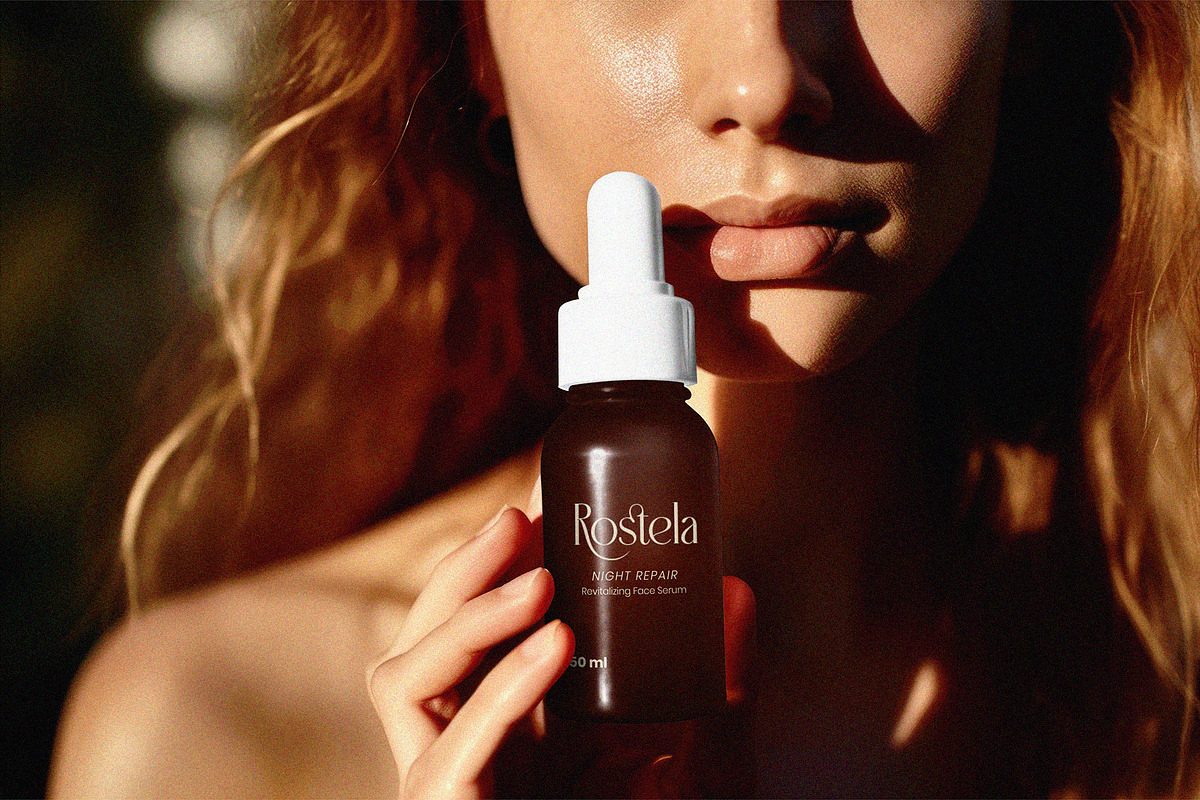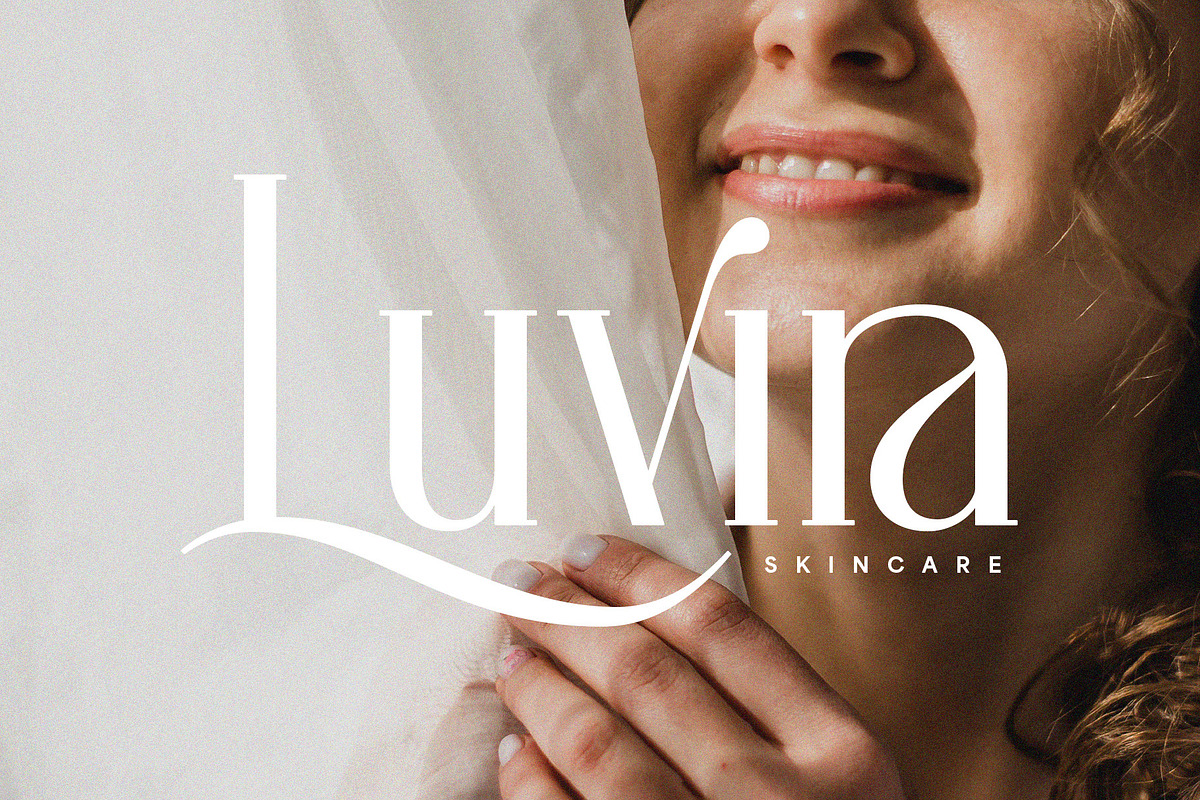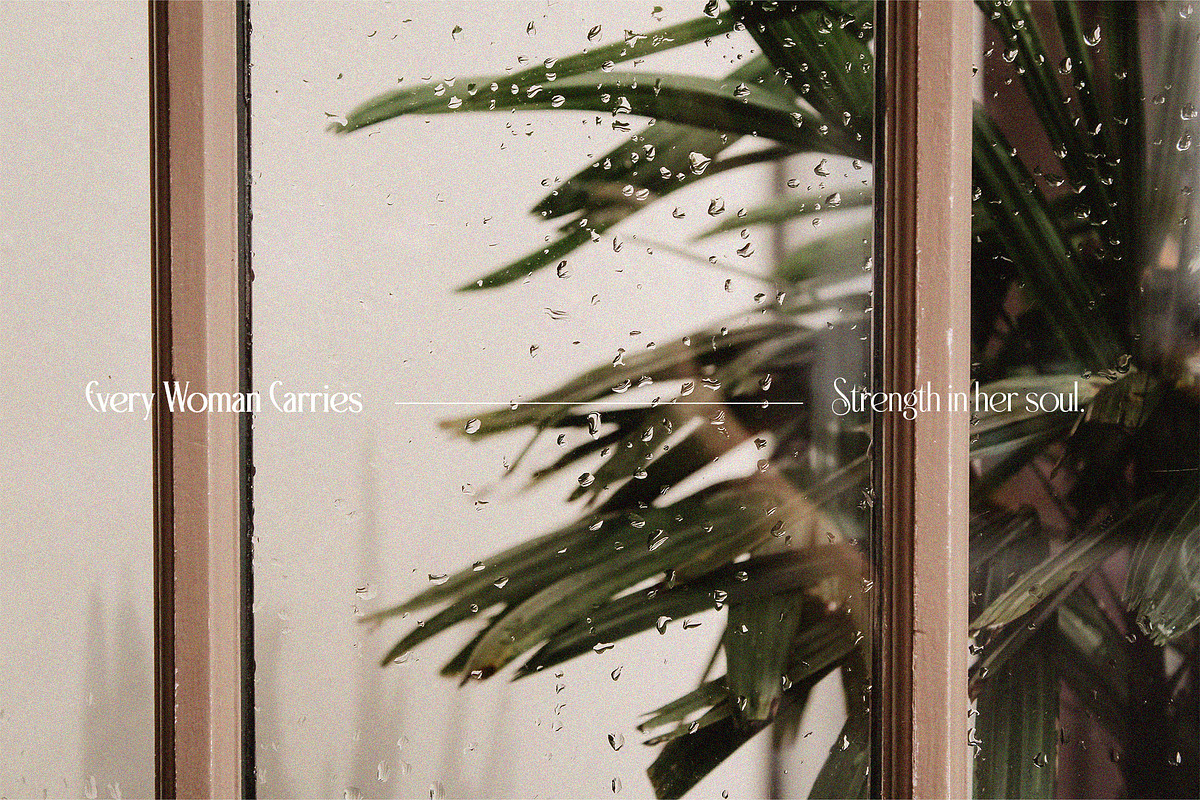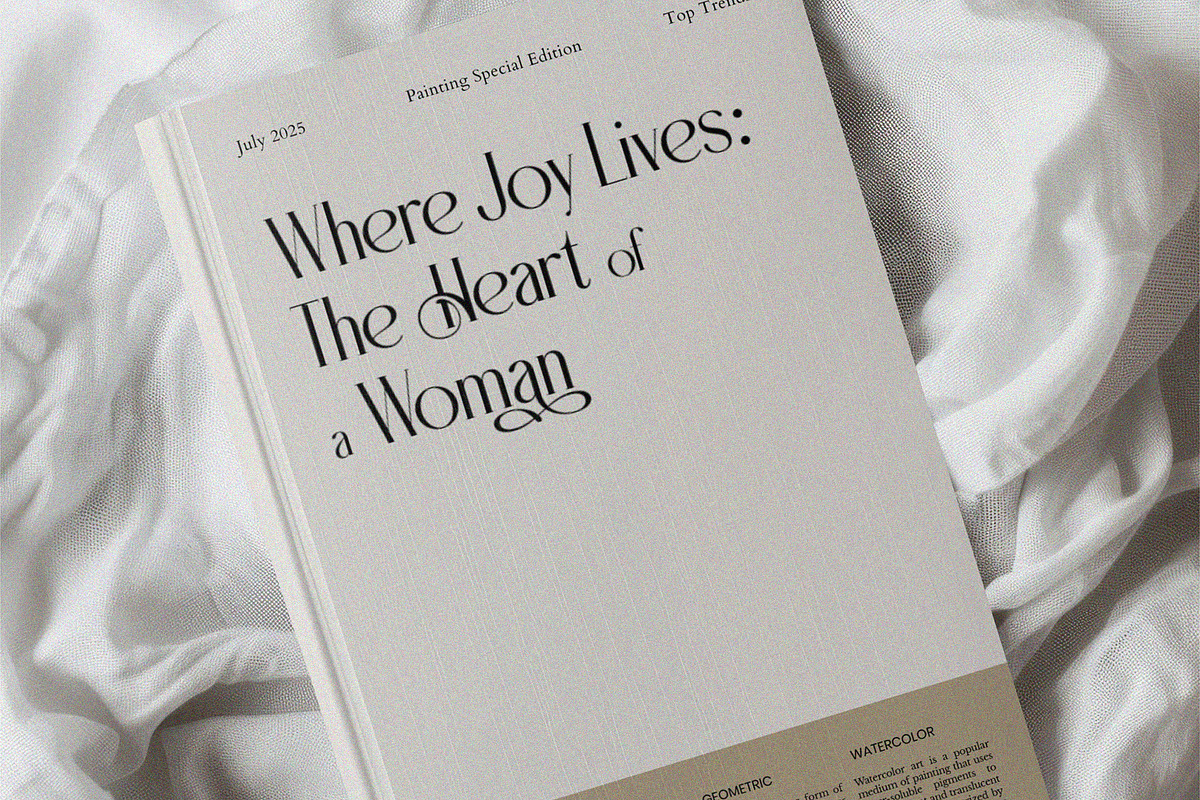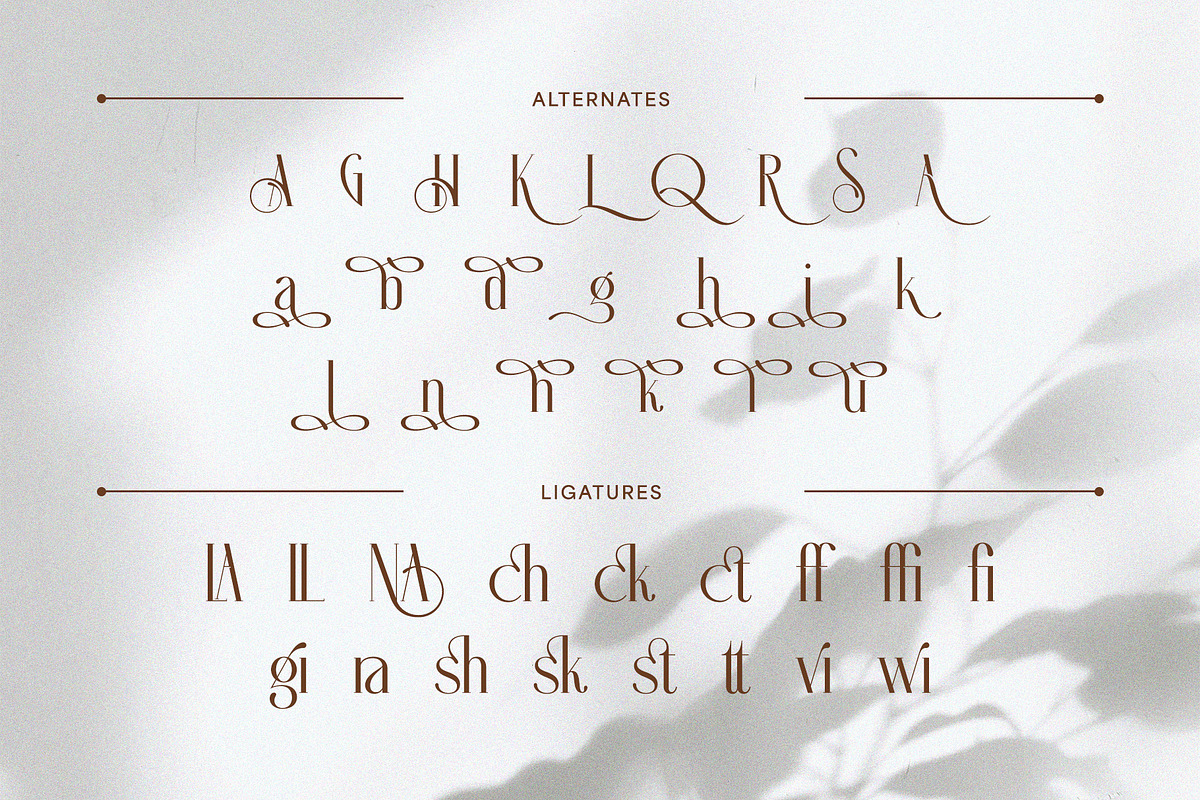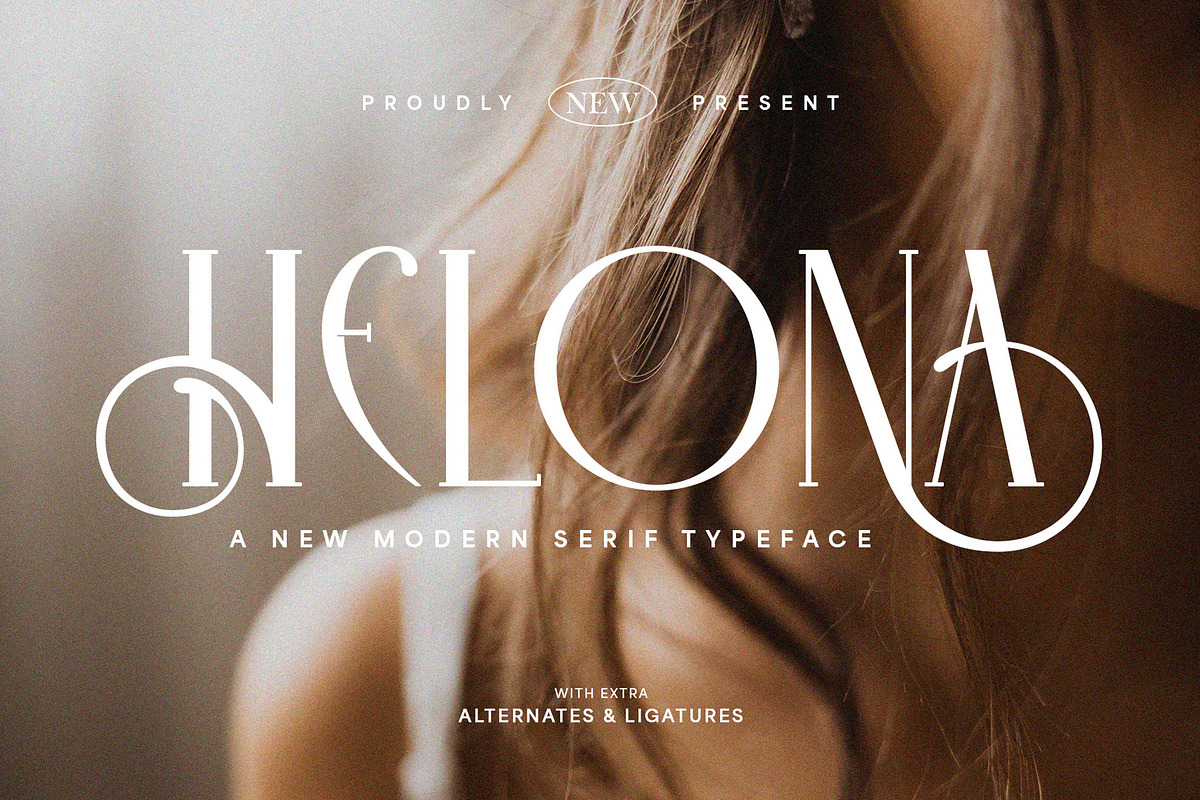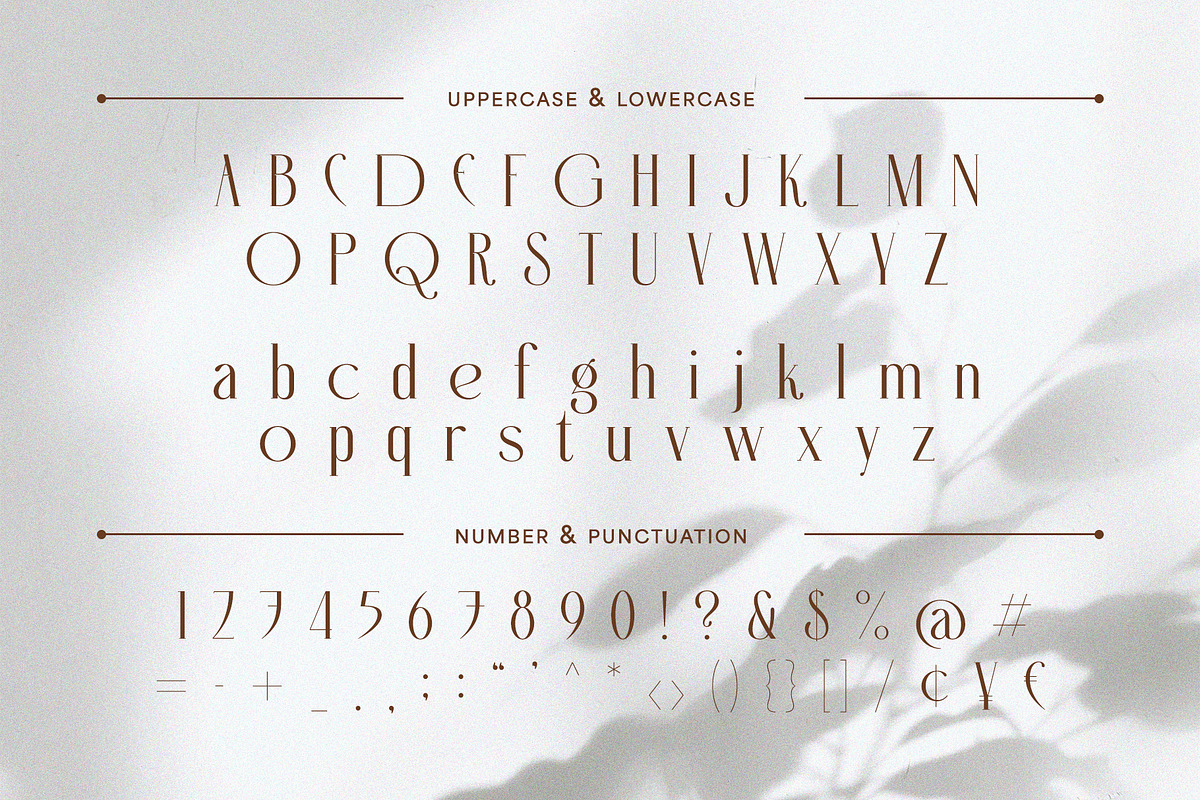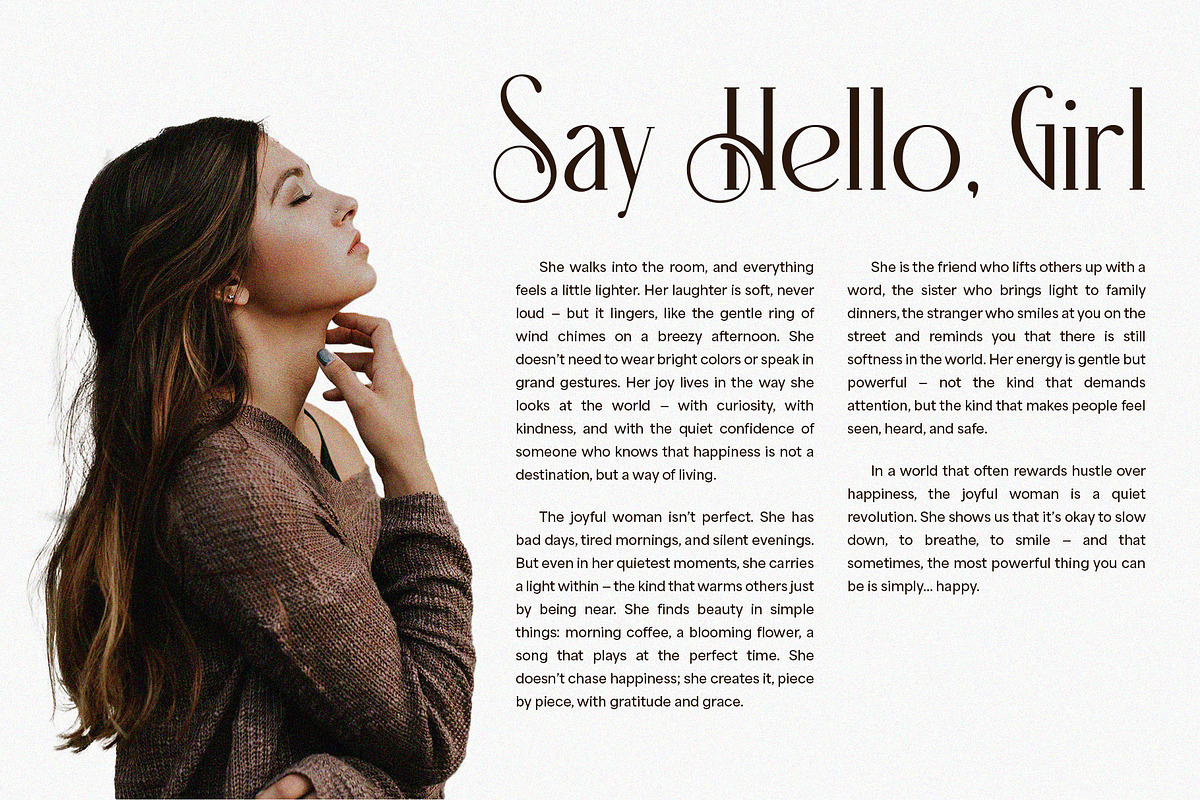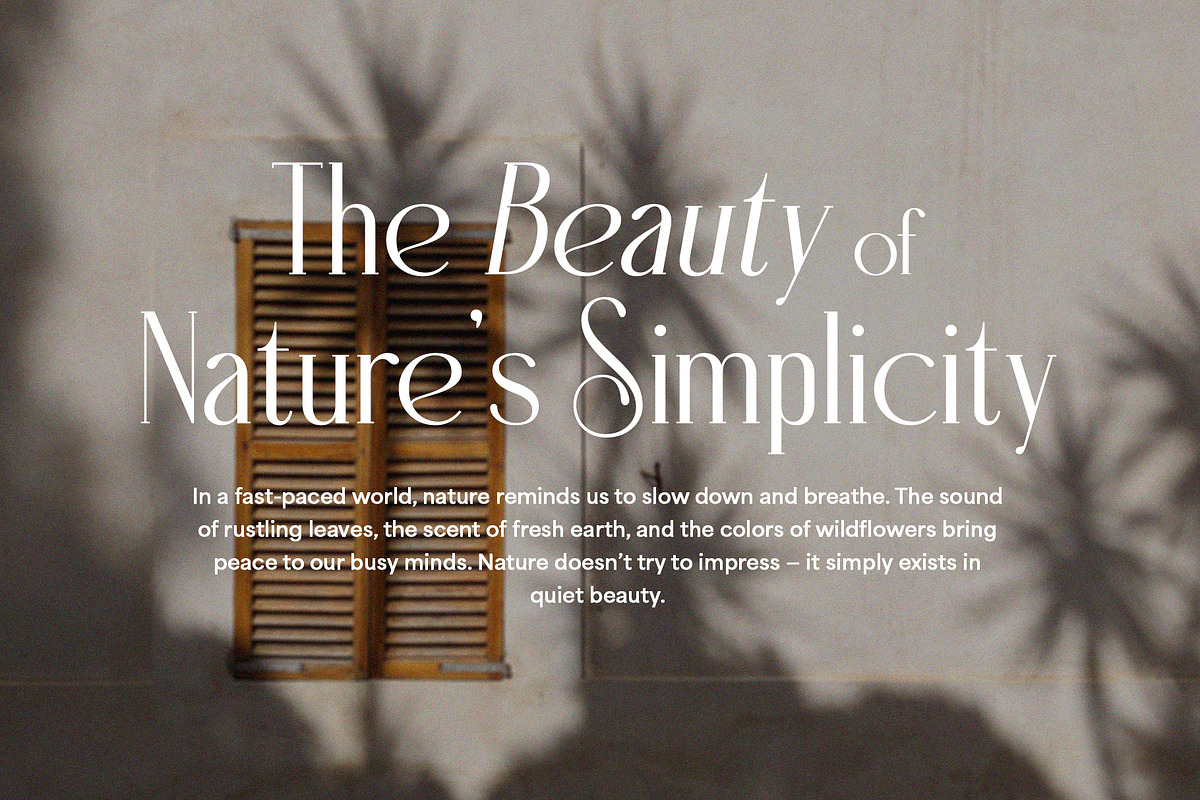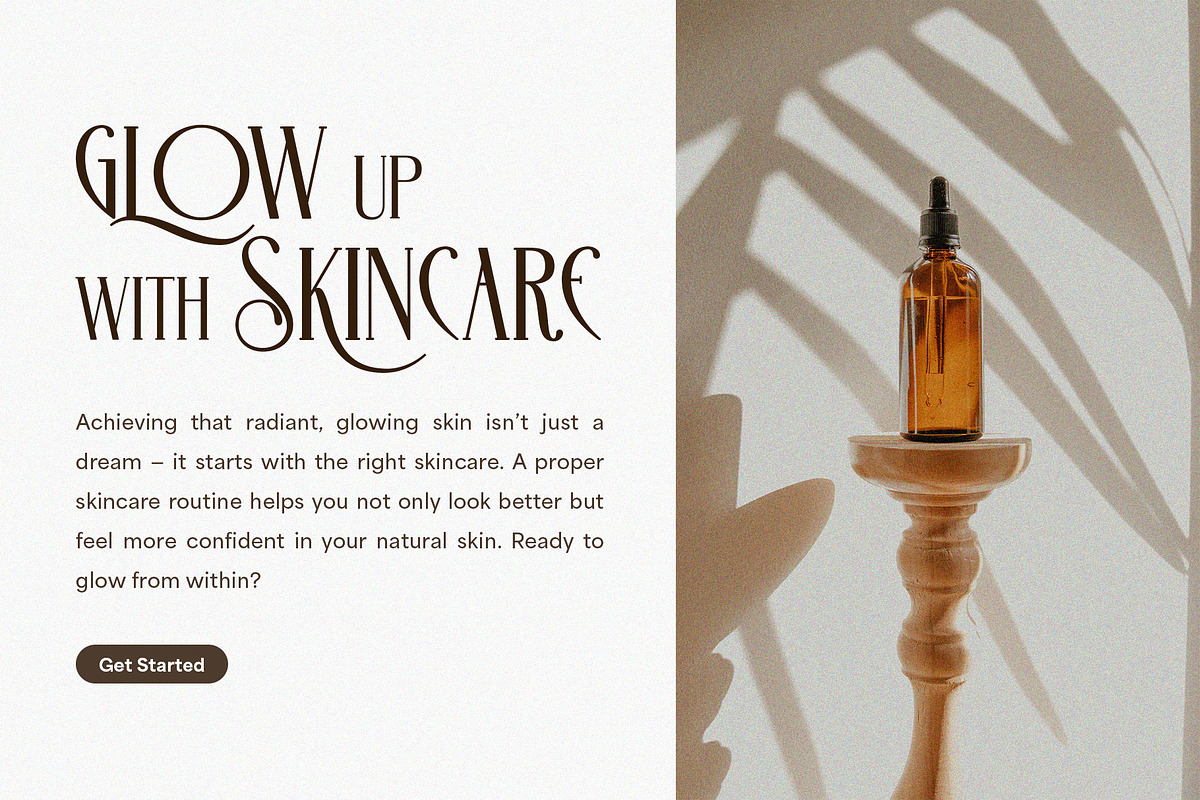
Helona - A New Modern Ligature Serif
Discover Helona, a captivating new modern serif typeface that redefines elegance with its stunning alternates and ligatures. This exquisitely crafted font is perfect for luxury branding, high-end editorial design, wedding invitations, fashion publications, and any project requiring a touch of unique sophistication. Helona's flowing curves and distinctive letterforms create a truly artistic and memorable impression, ensuring your typography stands out. With its rich set of stylistic options, this versatile font allows for endless creative possibilities, combining artistic flair with refined readability. Elevate your designs with Helona, the quintessential font for designers aiming for a blend of contemporary style and timeless, personalized charm.
- Ligature & alternates
- Numerial